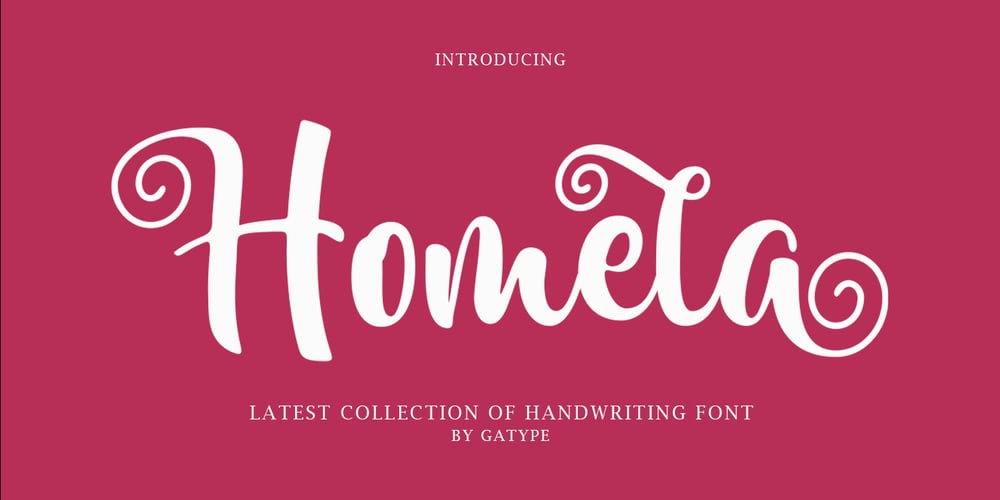
Homela
Homela font
Homela Font Family was designed by khaidir and published by Gatype. Homela contains 1 styles and family package options. Homela is a bold script font that is simple and unique looking. This customizable font will look great on a variety of design ideas such as Christmas themes, valentines, posters, invitations, weddings, branding projects, social media posts, magazines, book covers and more! This will add a fun and friendly touch to any of your projects! This font is PUA encoded which means you can access all the glyphs and sweeps easily.